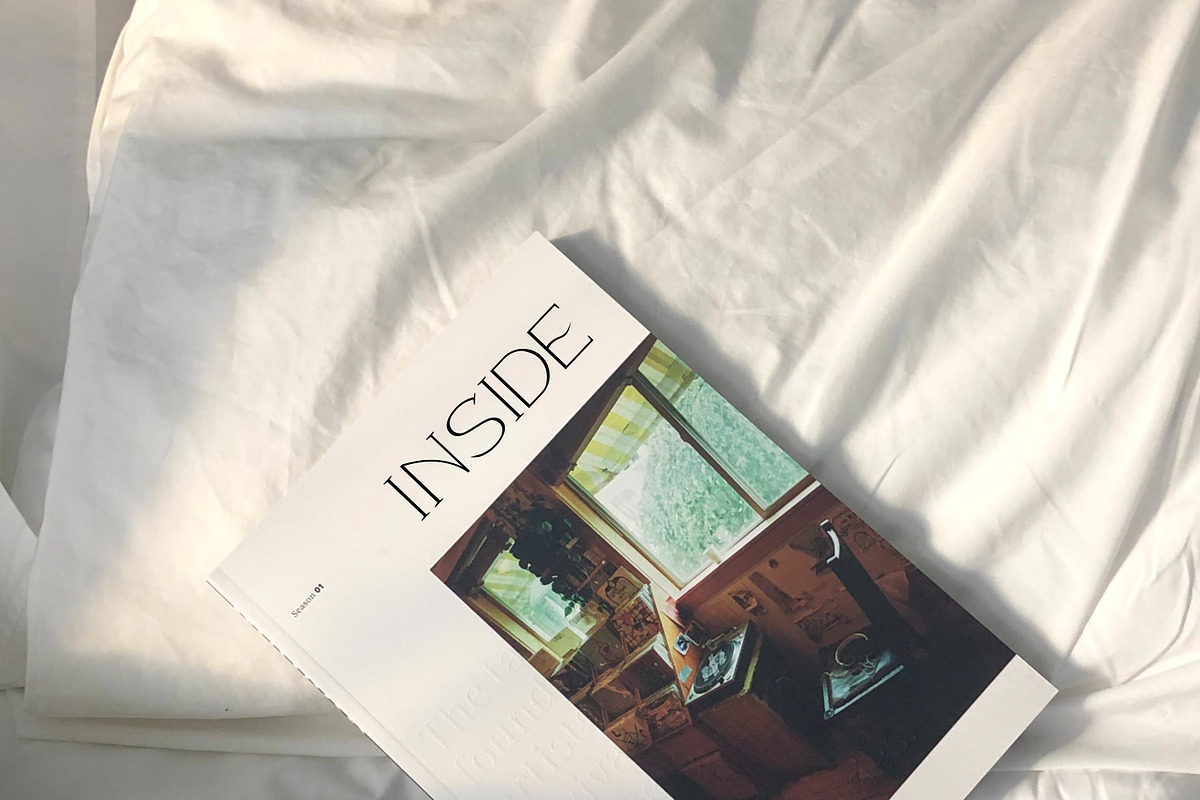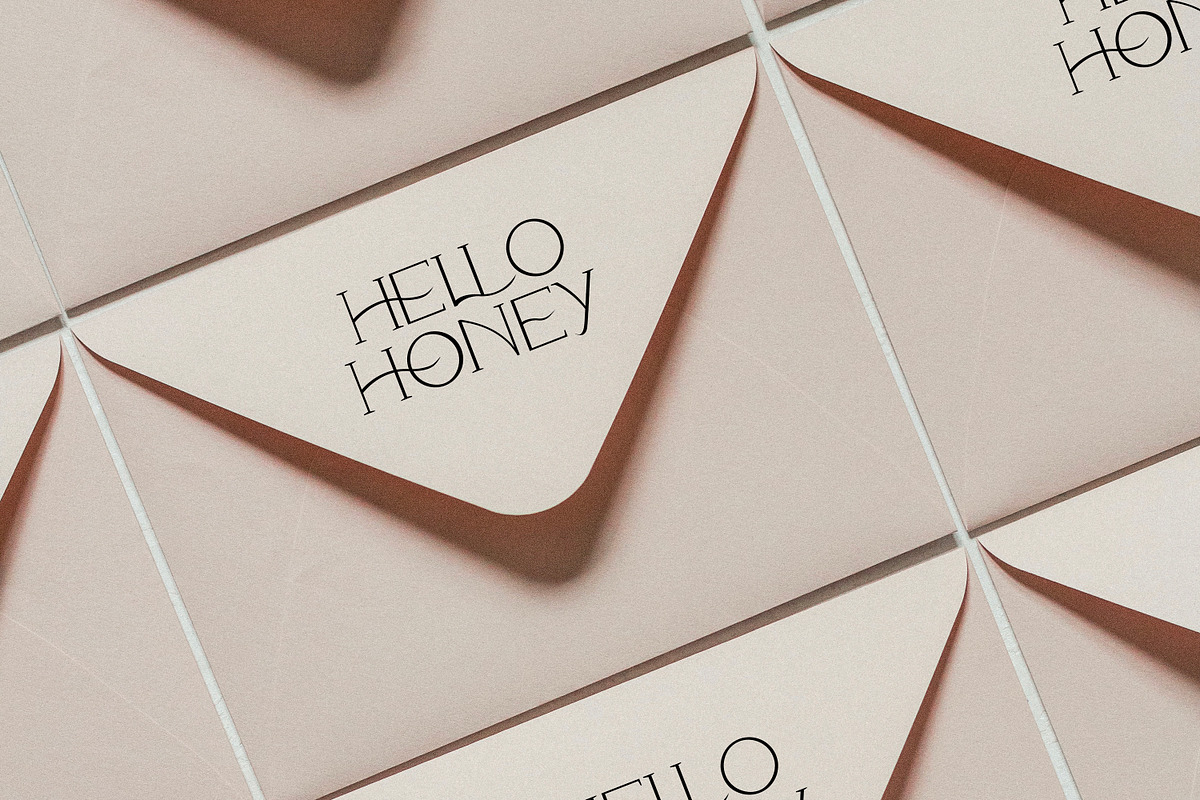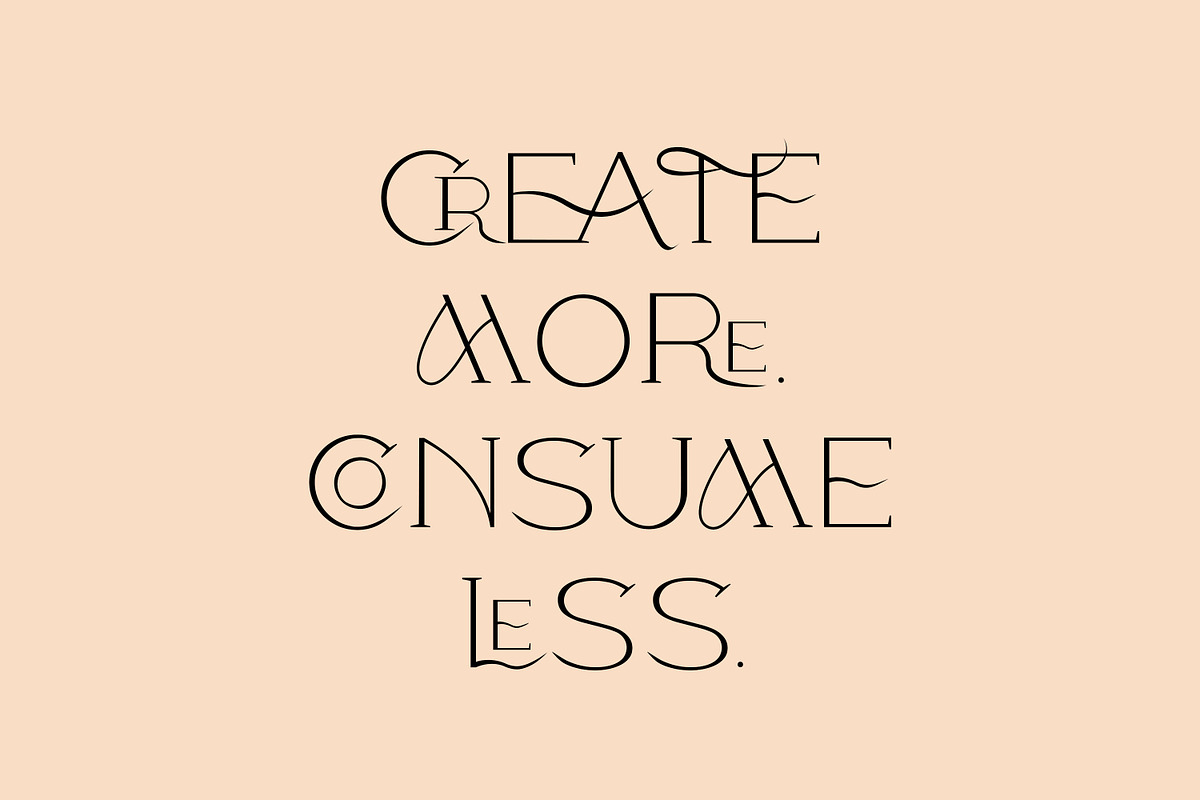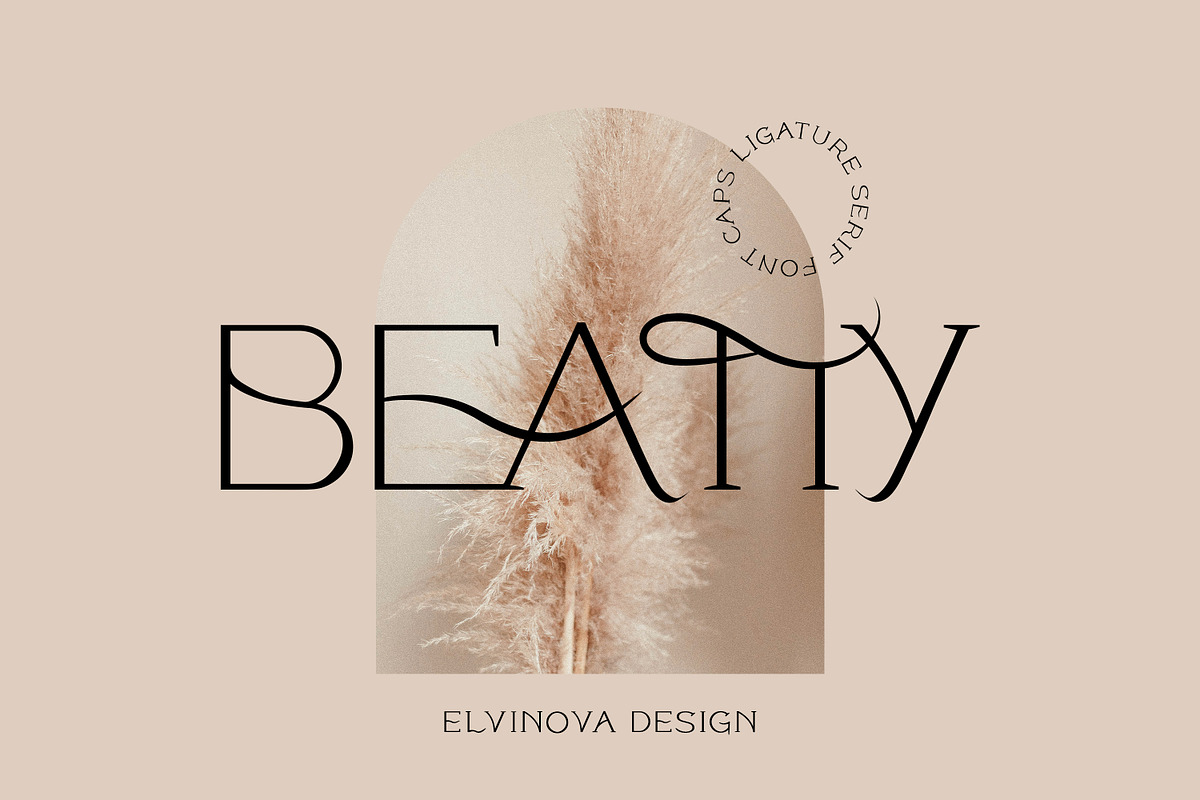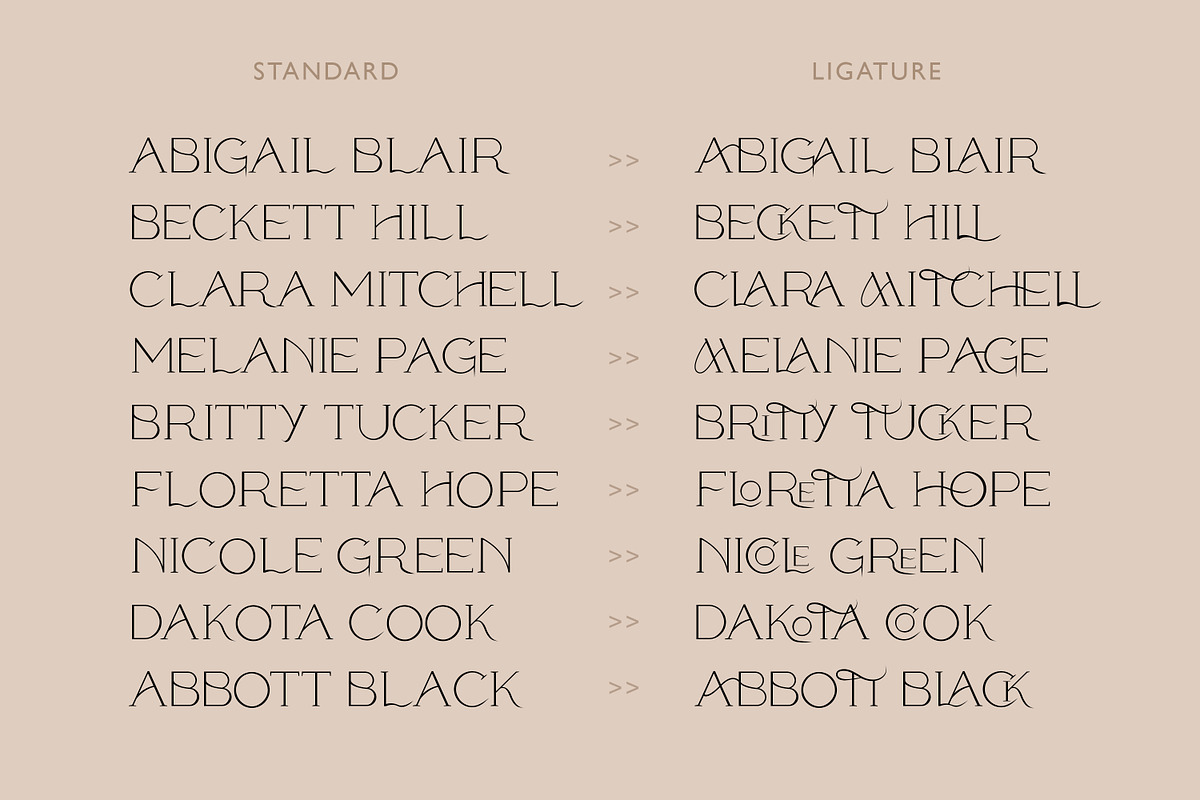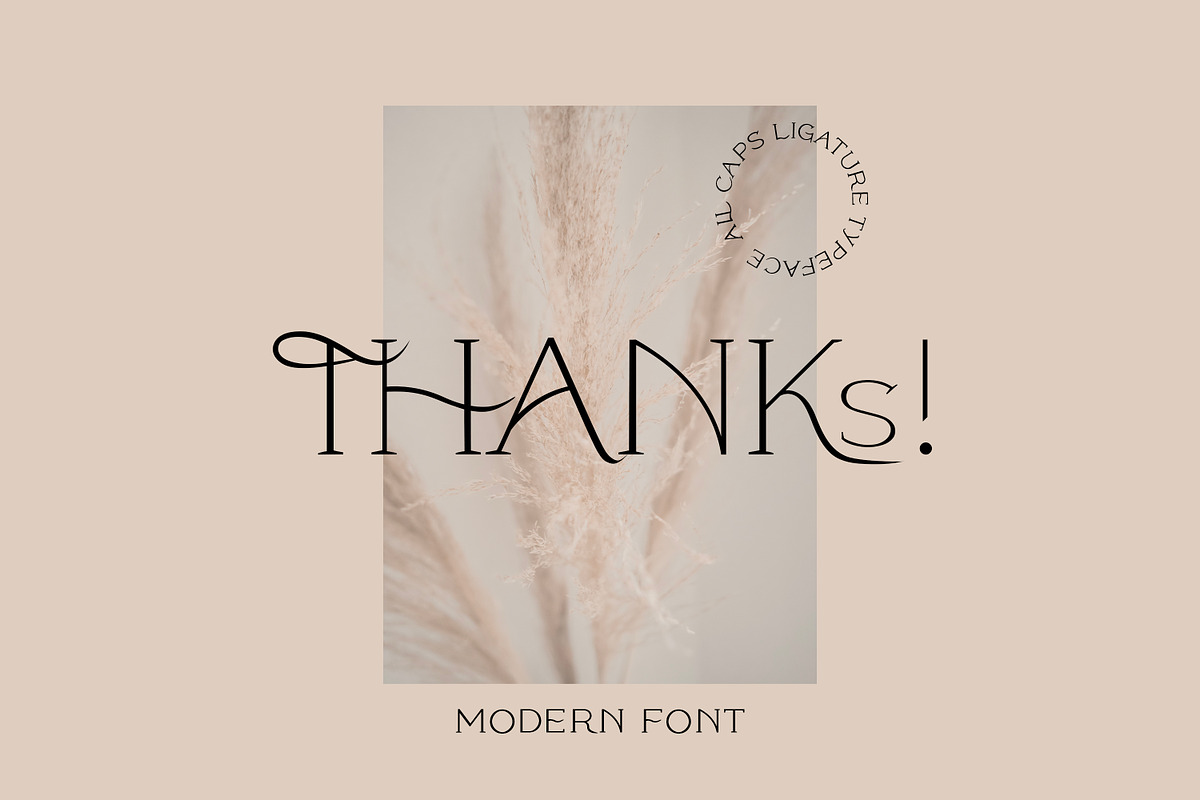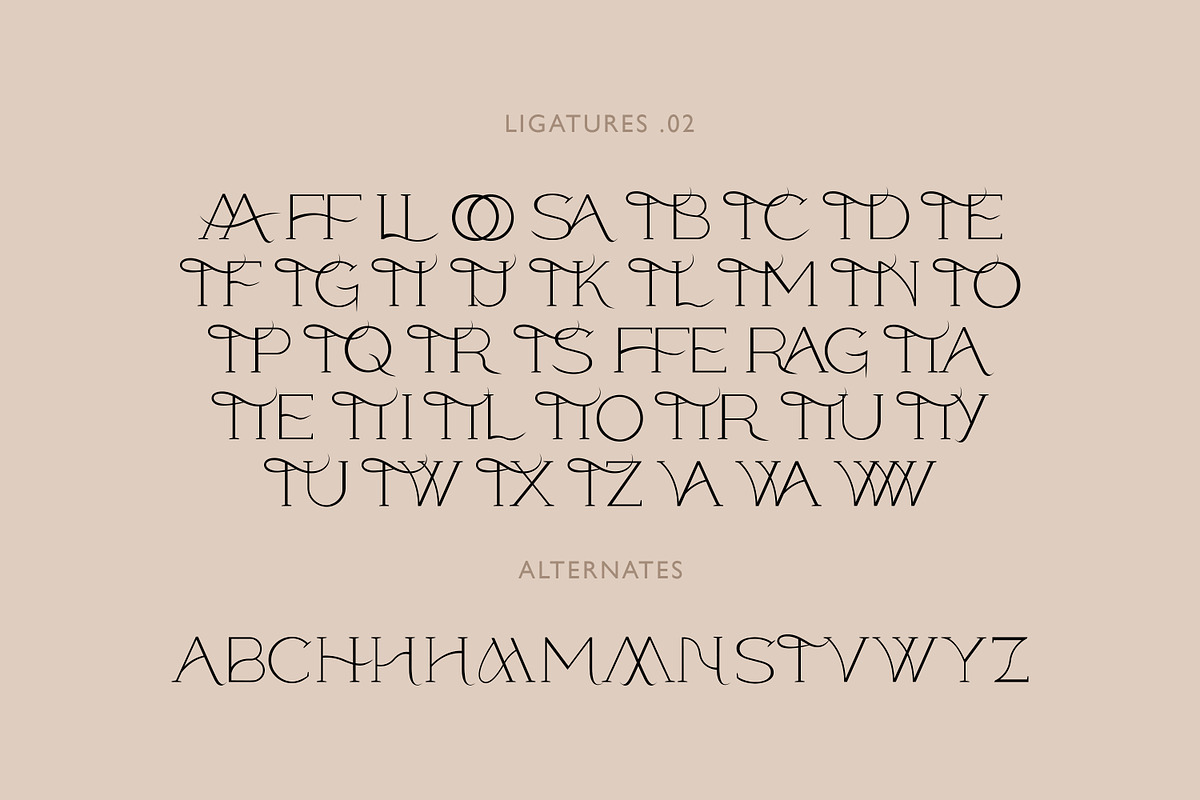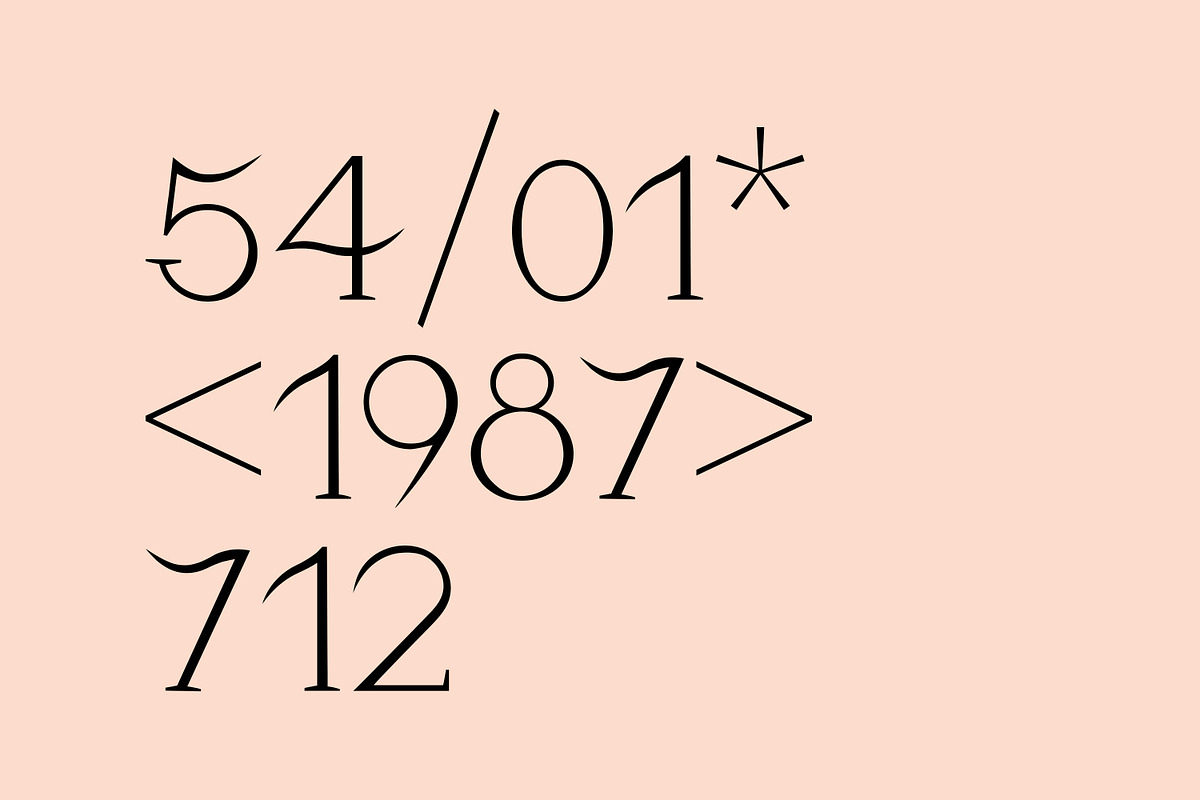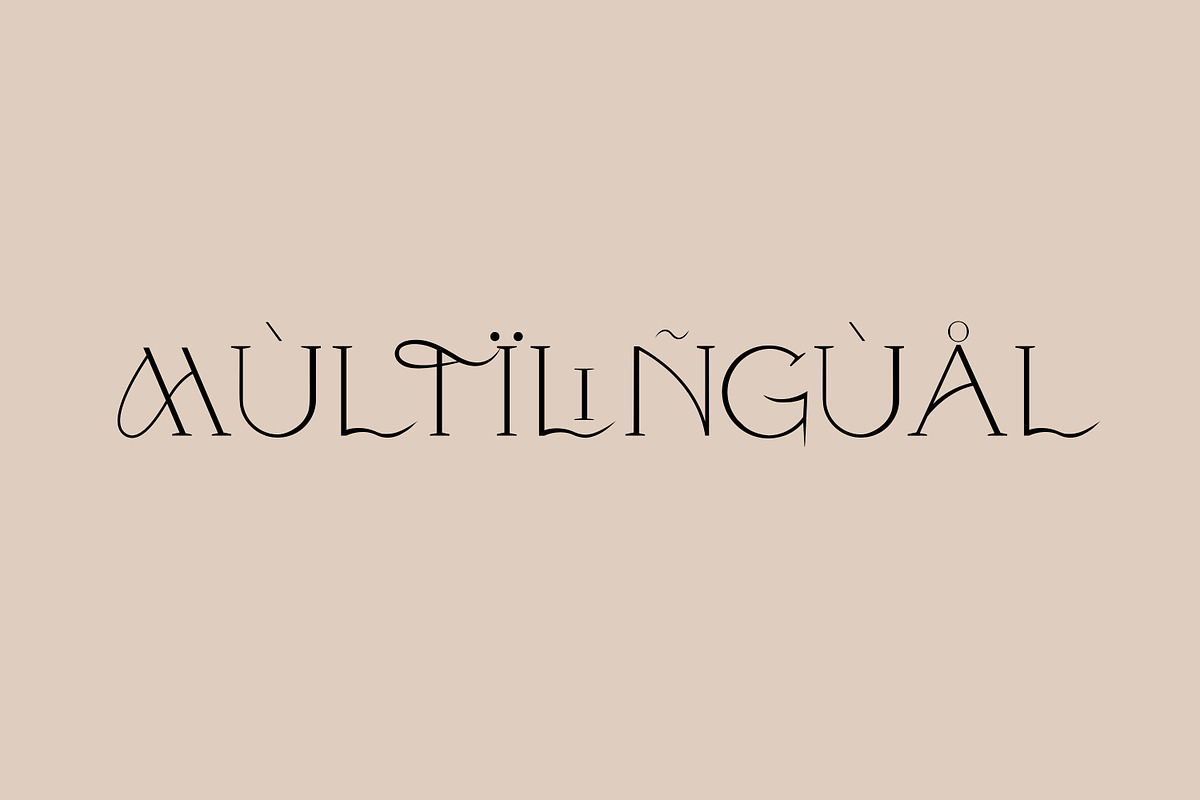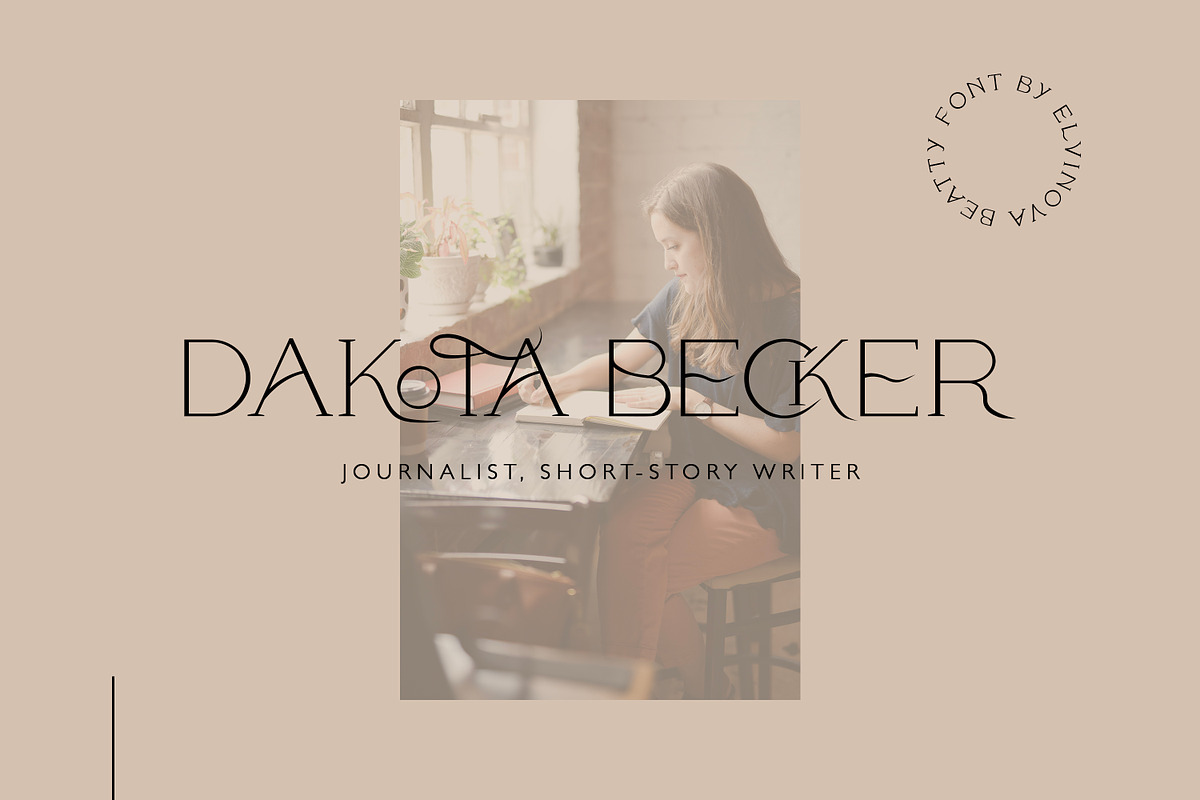
Modern ligature-rich font
Introducing «Beatty» modern classic font. All caps serif typeface. Over 100 stylish ligatures.
Perfect for logo, branding, weddings, social media and advertising - Beatty font will help sharpen your designs.
Beatty serif typeface that contains uppercase characters, alternates, ligatures, number 0-9 and a range of punctuation and symbols (OTF, TTF, WOFF). Multilingual support.